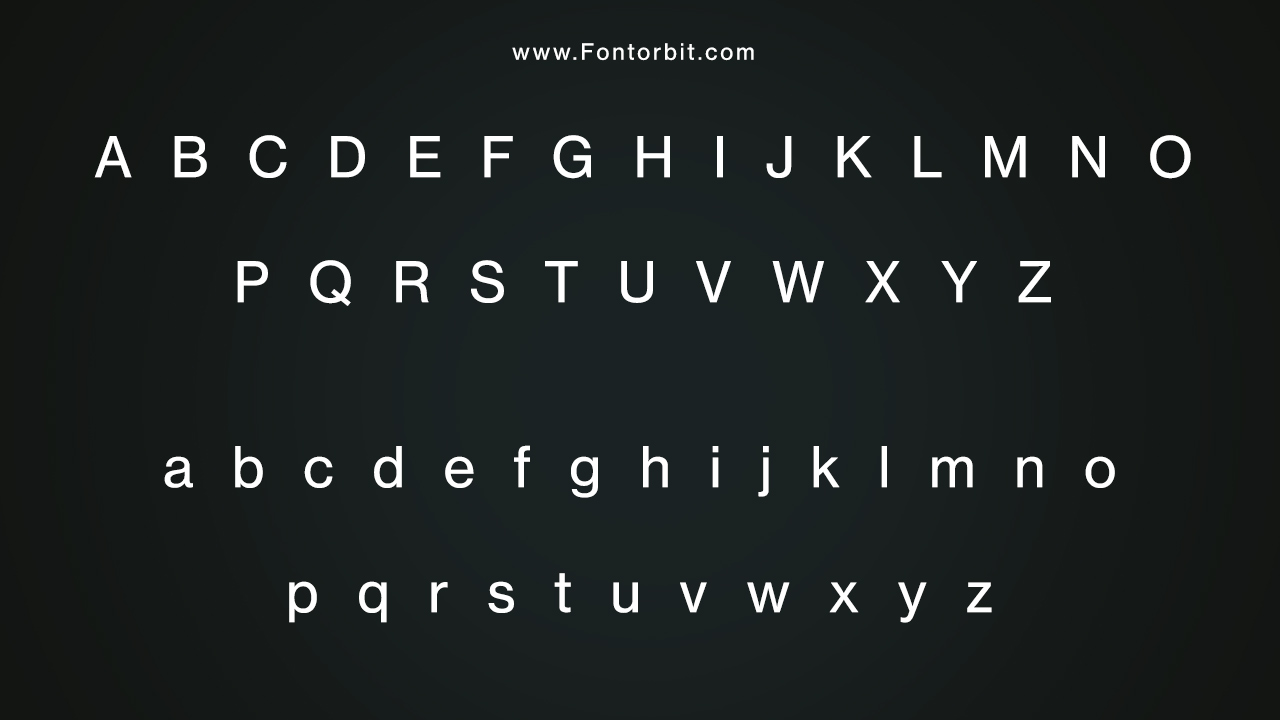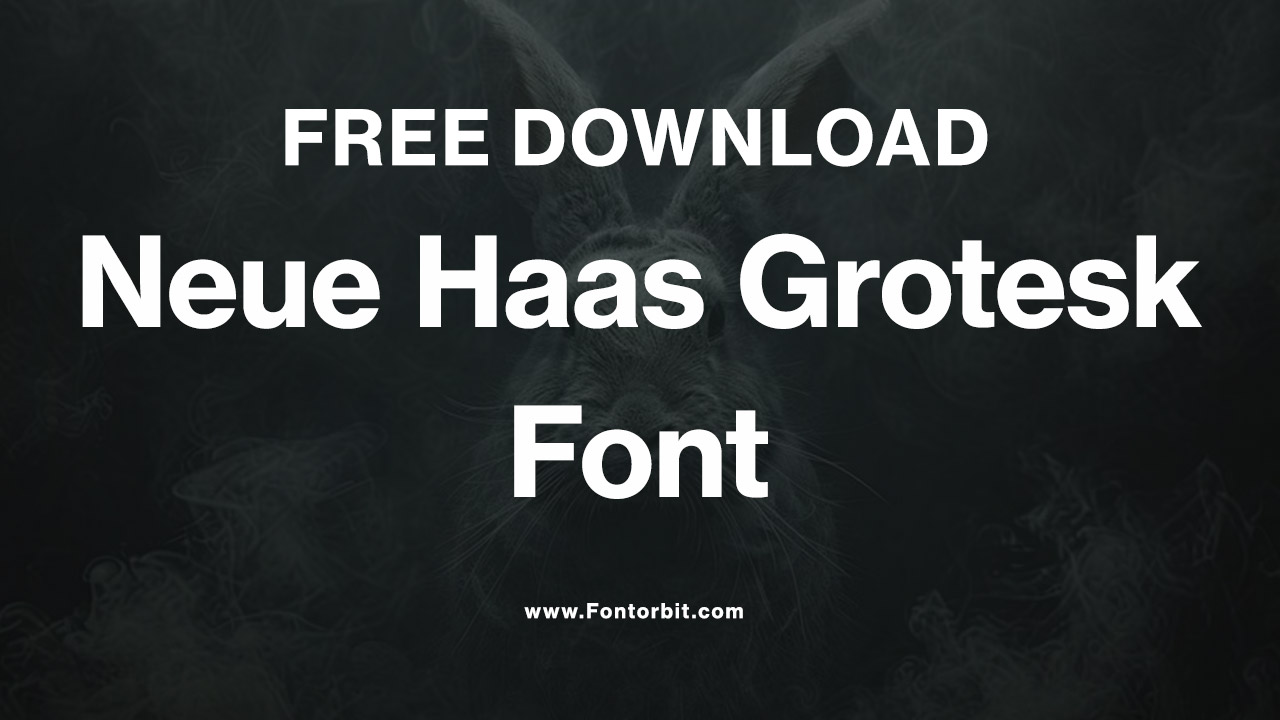
Neue Haas Grotesk is a classic typeface that holds a significant place in typography. Originally designed by Max Miedinger in 1957 and published by Linotype, the font became the precursor to Helvetica, one of the most widely recognized fonts in the world.
Neue Haas Grotesk is part of the grotesque sans-serif family and is known for its clean lines and readability, making it a versatile option for modern design projects.
Neue Haas Grotesk has been praised for its rich set of styles, catering to different design needs. The font family includes the following styles:
Notable Uses Of Neue Haas Grotesk
Neue Haas Grotesk is renowned for its professional look and versatility. It has been used across a variety of platforms and industries. Some of the most notable uses include:
- Corporate branding and logos
- Editorial layouts in magazines and newspapers
- Signage and wayfinding systems
- Web and app design for a clean, modern user experience
Due to its clear readability and minimalistic design, Neue Haas Grotesk is an excellent choice for:
- Large blocks of text in books and articles
- Digital interfaces and website UI/UX design
- Corporate presentations and business documents
- Advertising materials and poster designs
Last Word
Neue Haas Grotesk is a timeless font that offers a blend of functionality and aesthetic appeal. Whether you’re designing for print, digital, or corporate needs, it delivers clean, professional results. If you can’t access this font directly, several free alternatives can serve your design purpose while maintaining a similar visual style.
1.What Is The Difference Between Neue Haas Grotesk And Helvetica?
Neue Haas Grotesk is the original typeface that inspired Helvetica, with minor design tweaks and adjustments.
4.What Font Family Does Neue Haas Grotesk Belong To?
Neue Haas Grotesk belongs to the grotesque sans-serif family.
5.Can Neue Haas Grotesk Be Used In Logos?
Yes, the clean lines of Neue Haas Grotesk make it ideal for logo design.
6.Is There An Italic Version Of Neue Haas Grotesk?
Yes, Neue Haas Grotesk comes with italic styles, including light, regular, bold, and black italic.
7.Is Neue Haas Grotesk Good For Signage?
Yes, its high readability makes it a good option for signage.